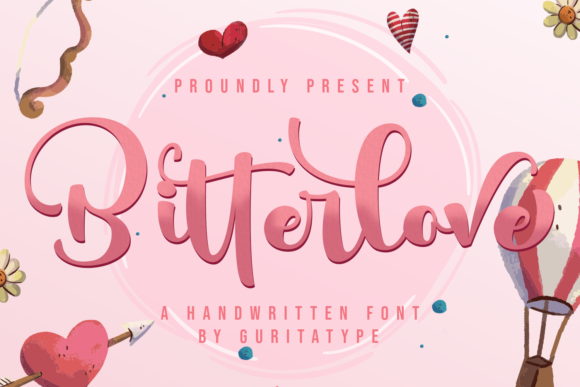
Presenting Bitterlove: A Love Story in Every Curve
In a realm of digital expressions, let your words dance with the grace and allure of Bitterlove, a script font that captures the essence of love and romance. Each letter, crafted with meticulous precision, exudes an elegance that will leave your readers spellbound.
Immerse yourself in the beauty of Bitterlove, a font that seamlessly blends the charm of calligraphy with a modern, captivating twist. Its timeless style elevates your words, making them shine with sophistication and charm.
With Bitterlove, your designs will radiate warmth and affection, captivating the hearts of all who lay their eyes upon them. From heartfelt love letters to enchanting wedding invitations, Bitterlove weaves a narrative of love that resonates with your audience.
Unlock the true potential of Bitterlove with its PUA encoding, granting you effortless access to a treasure trove of glyphs and swashes. Unleash your creativity and let your designs blossom with limitless possibilities.